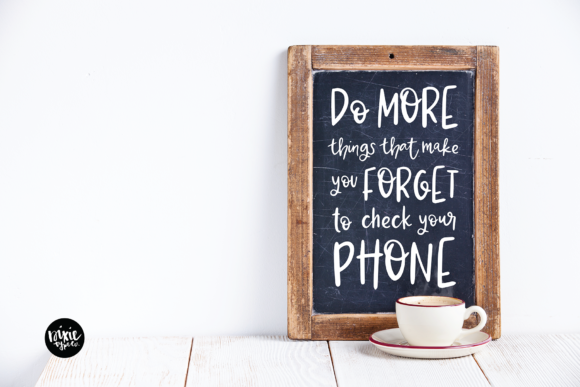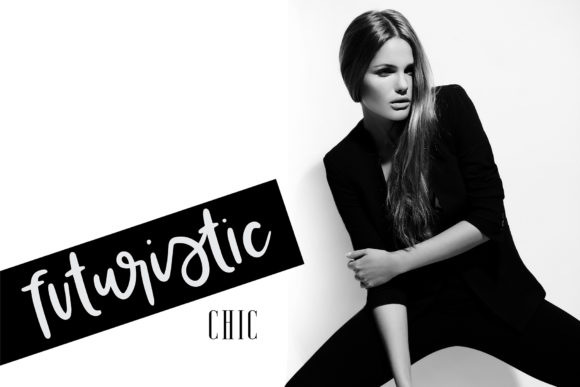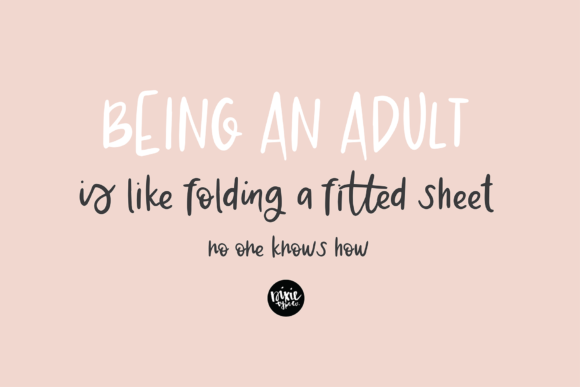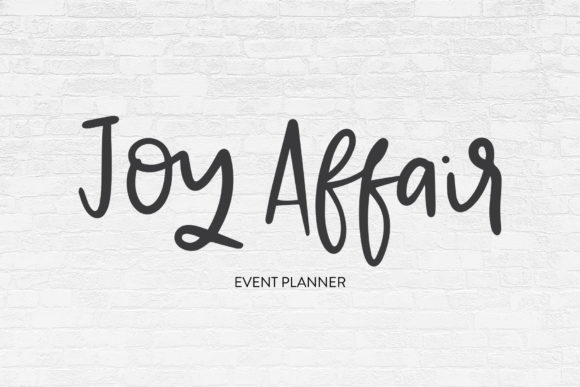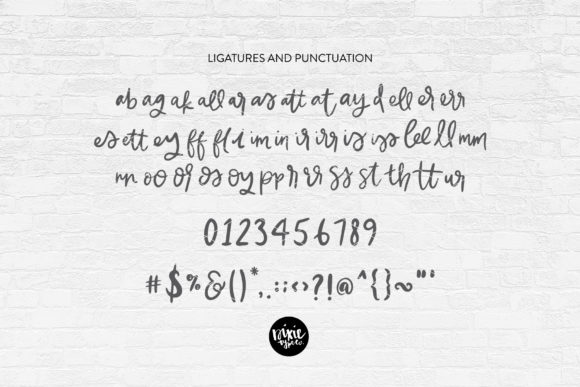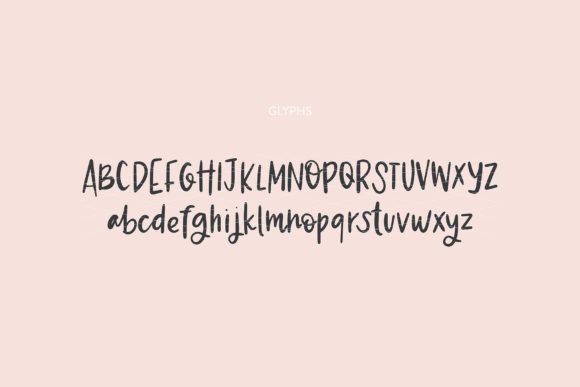
Meet Coralee Font, a flowing handwritten font that’s as charming as it is versatile. Its casual, down-to-earth feel makes it a perfect fit for any project, whether you’re working on a busy background or crafting a standalone headline. With Coralee Font, you can add a touch of warmth and personality to your design, making it stand out in a crowded market.
- Font Family: Coralee Font is a beautiful, elegant script font.
- Unique Characteristics: Features a flowing, handwritten style with subtle flair and elegance, making it perfect for invitations, logos, and other creative projects.
Coralee Font Review
Overall, I found the Coralee Font to be a visually appealing option for designers. It has a unique and elegant style that can be used in a variety of applications, from branding to publishing. ✨
Here are some specific things that I like about Coralee:
- ✨ Elegant and refined design aesthetic
- ✨ Versatile and can be used in various contexts
- ✨ High-quality typography with crisp lines and smooth curves
However, there are also some limitations to consider:
- ⚠️ May be too ornate for certain designs or applications
- ⚠️ Not as readable in smaller font sizes or when used in bold weights
- ⚠️ Limited language support, which may be a concern for designers working on international projects
Overall, I think Coralee is a solid choice for designers who want to add a touch of elegance and sophistication to their work. While it may not be the best fit for every project, it’s certainly worth considering for those looking for a high-end, visually striking font.
Coralee Font is perfect for:
- Birth announcements and baby shower invitations
- Personalized gifts and cards
- Pair it with a clean and simple background to let the font shine.
- Use it in combination with other elegant fonts for a sophisticated look.
- Experiment with different font sizes and styles to create visual interest.
Alternatives to Coralee Font for Designers
1. Carolyna Pro
Carolyna Pro is a modern script font with a touch of elegance. It is perfect for creating a luxurious and sophisticated look in your designs. It has a similar feel to Coralee Font, but with a more refined and polished appearance.
Comparison: Carolyna Pro is more versatile and can be used for a wider range of designs, including invitations, posters, and business cards. Coralee Font is more suited for feminine and whimsical designs.
Great Vibes is a beautiful script font with a relaxed and casual feel. It is perfect for creating a friendly and approachable look in your designs. It has a similar playful feel to Coralee Font, but with a more laid-back and effortless appearance.
Comparison: Great Vibes is more suitable for informal designs such as social media graphics, blog posts, and advertisements. Coralee Font is more suited for formal and elegant designs.
Alex Brush is a elegant and sophisticated script font with a touch of luxury. It is perfect for creating a high-end and refined look in your designs. It has a similar feel to Coralee Font, but with a more classic and timeless appearance.
Comparison: Alex Brush is more versatile and can be used for a wide range of designs, including business cards, invitations, and packaging. Coralee Font is more suited for feminine and whimsical designs.